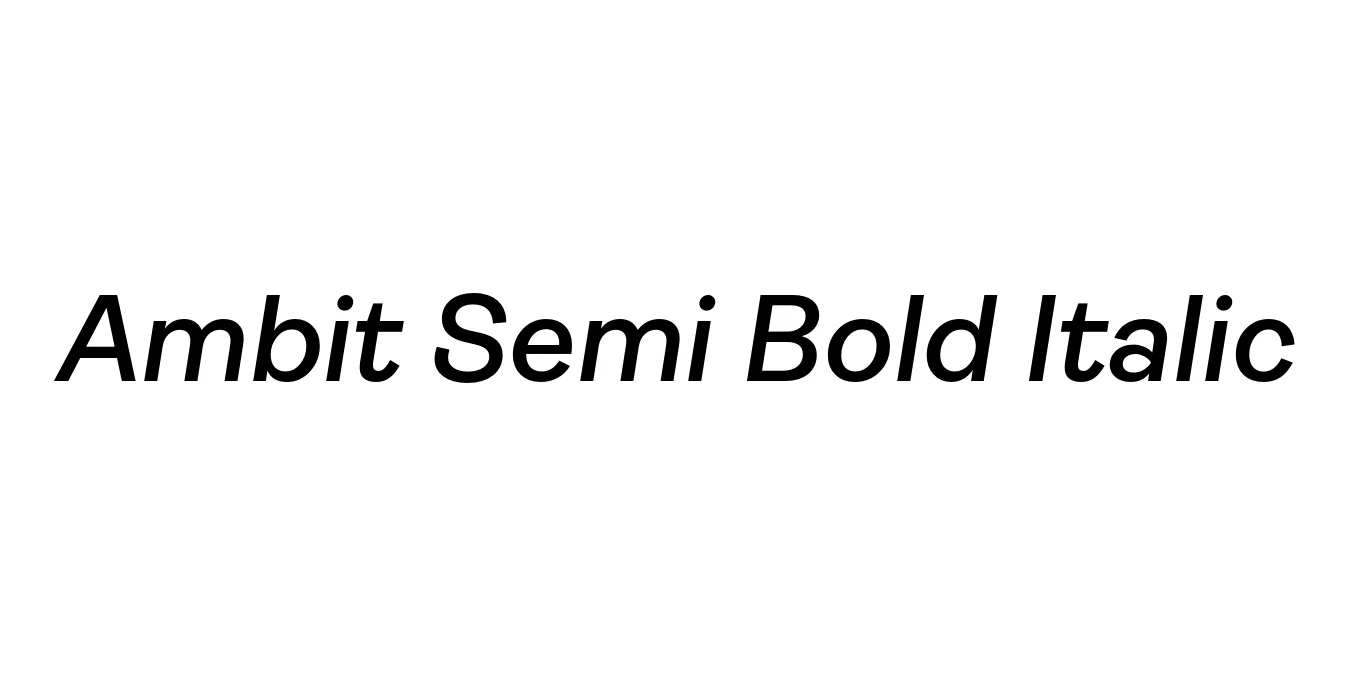
Ambit Semi Bold Italic
Designed by Cobi Levy
Ambit Semi Bold Italic is an eccentric and unique sans-serif typeface designed by Cobi Levy and released through CoType Foundry. This font family stands out for its fusion of early grotesque elements with contemporary geometric shapes, resulting in a character that is both familiar and strikingly modern. The Semi Bold Italic weight offers a perfect balance between visibility and fluidity, making it ideal for emphasizing key messaging without losing the sophisticated aesthetic of the overall family.
Its most distinctive features are the curly terminals and the generous x-height, which provide excellent legibility even in smaller sizes. The italic version is not merely a slanted companion but a carefully crafted oblique that adds a dynamic sense of motion and personality to the text. Whether used for digital interfaces or high-end print editorial, Ambit provides a versatile solution for designers looking for a typeface with a strong, distinct voice.
Ambit Semi Bold Italic Best Uses
Creating unique visual identities with a modern twist.
Headlines and pull quotes in magazines or digital journals.
High-readability headers in mobile applications and websites.
Eye-catching copy for social media campaigns and posters.